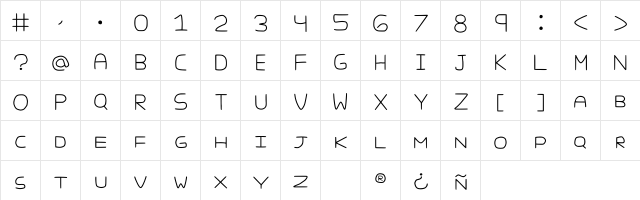
Puruaran Regular
Design Context for Puruaran Typeface
Puruaran takes a measured approach to typography — its balanced proportions and neutral character make it a reliable workhorse for both digital and print work.